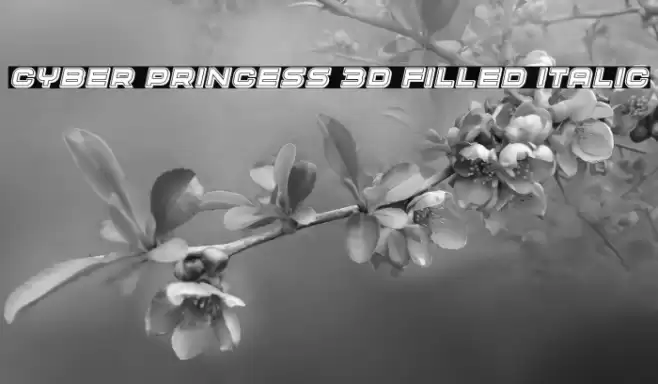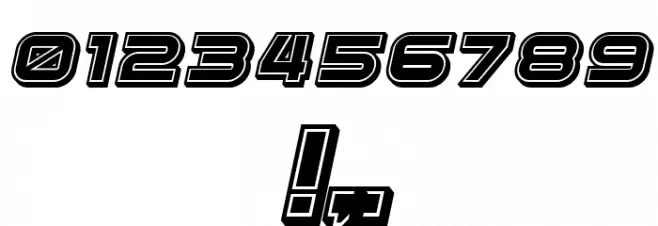
Cyber Princess 3D Filled Italic Font
Cyber Princess 3D Filled Italic Description
This font features a bold, futuristic design with a 3D effect that gives each character a sense of depth and dimension. The letters are filled and italicized, creating a dynamic and energetic appearance. The geometric shapes and clean lines contribute to a modern aesthetic, while the bold outlines enhance readability. The font maintains a consistent style across uppercase, lowercase, and numeric characters, with special characters also following the same design principles. This font is ideal for projects that require a strong, impactful visual presence.
A bold, 3D italic font with a futuristic and dynamic style from Uncategorized fonts.
- Proposed Projects: Ideal for sci-fi themed designs, video game titles, tech branding, and digital artwork.